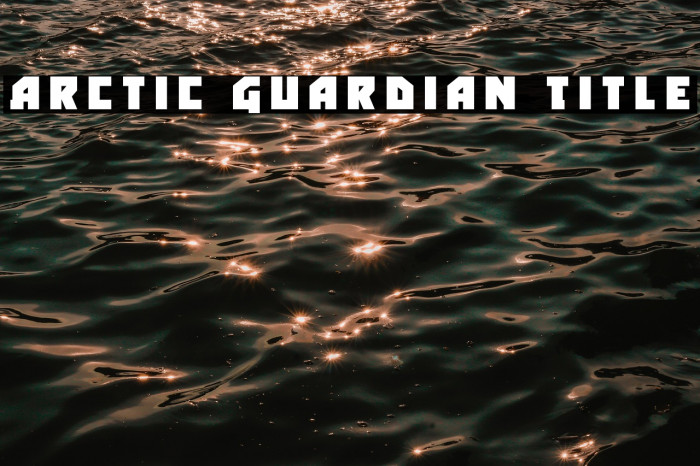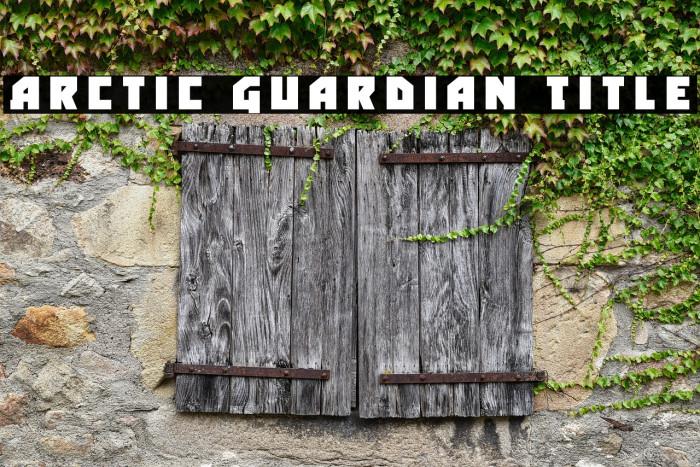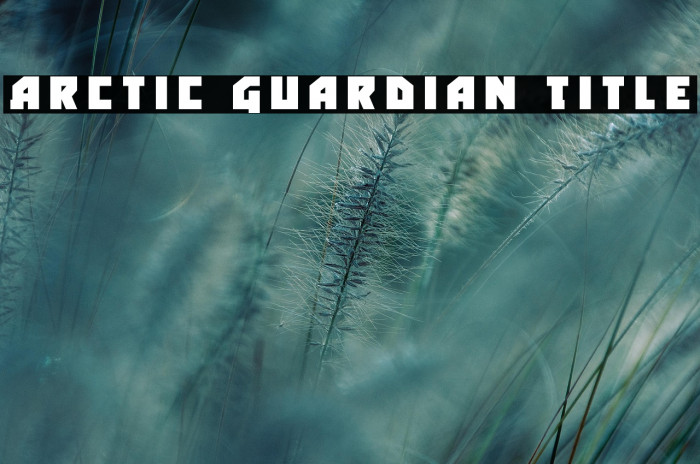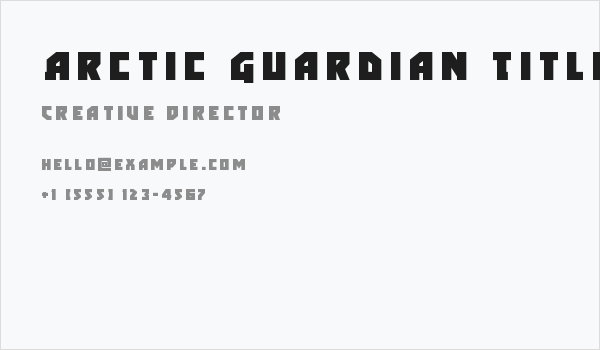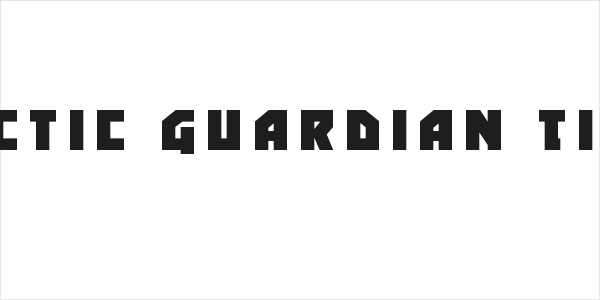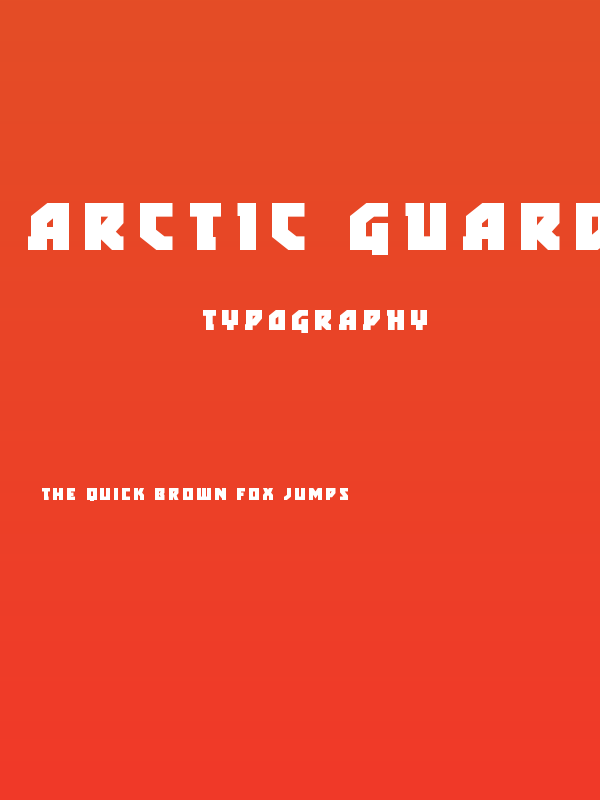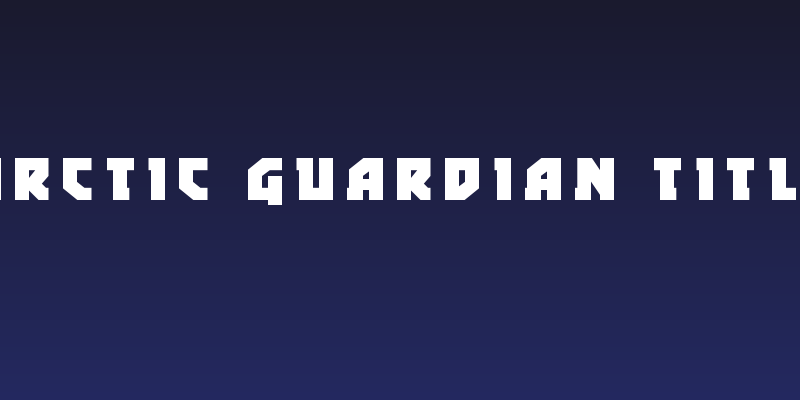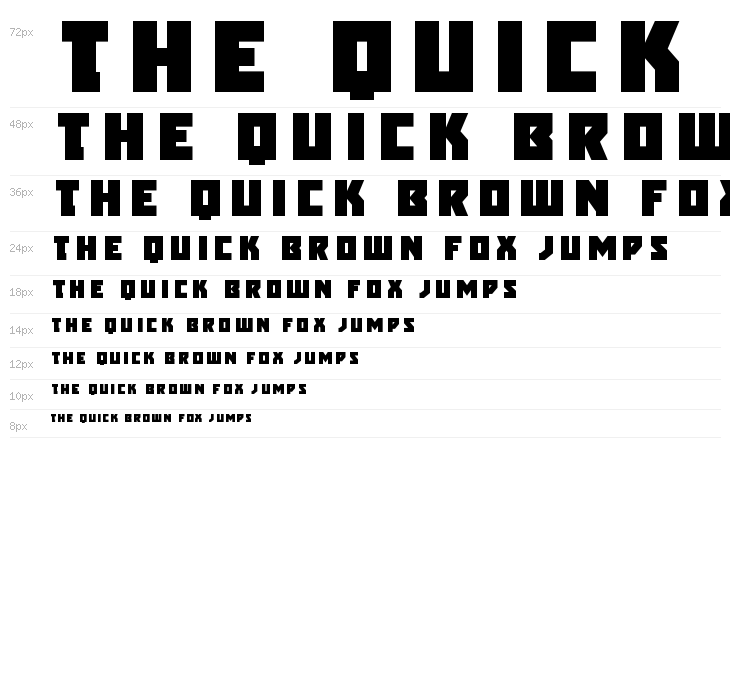
Arctic Guardian Title Font
Arctic Guardian Title Description
This font features a bold, geometric design with sharp angles and a blocky appearance. The uppercase and lowercase letters share a consistent style, emphasizing a strong, impactful presence. The numbers and special characters maintain this aesthetic, ensuring uniformity across all glyphs. The font's design is reminiscent of a futuristic or industrial theme, with a focus on clarity and strength. The thick strokes and uniform line weight contribute to its commanding look, making it ideal for attention-grabbing applications.
| Overall Style | Futuristic, Industrial |
| Proposed Projects | Ideal for use in video game titles, movie posters, branding for tech companies, or any project requiring a bold, futuristic look. |